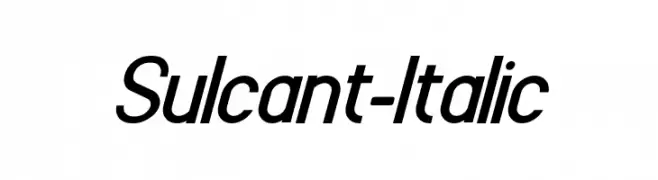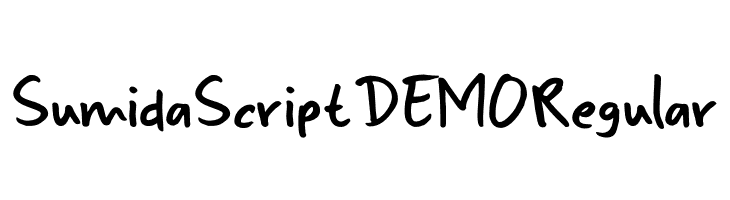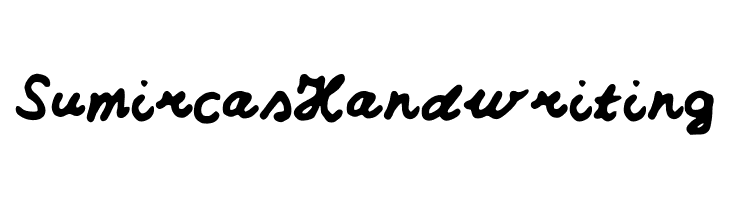
A bold, energetic script font with expressive, hand-drawn strokes.
A bold, brush-style script font with dynamic and energetic strokes.
A dynamic handwritten font with fluid strokes and a lively, personal touch.
A playful, handwritten-style font with rounded, consistent strokes and a casual feel.
A bold, modern font with geometric and angular elements.
A modern, geometric sans-serif font with clean lines and balanced proportions.
A modern, geometric sans-serif font with clean lines and uniform strokes.
A modern, italicized font with uniform stroke weight and dynamic style.
A sleek, modern italic font with consistent stroke weight and a dynamic appearance.